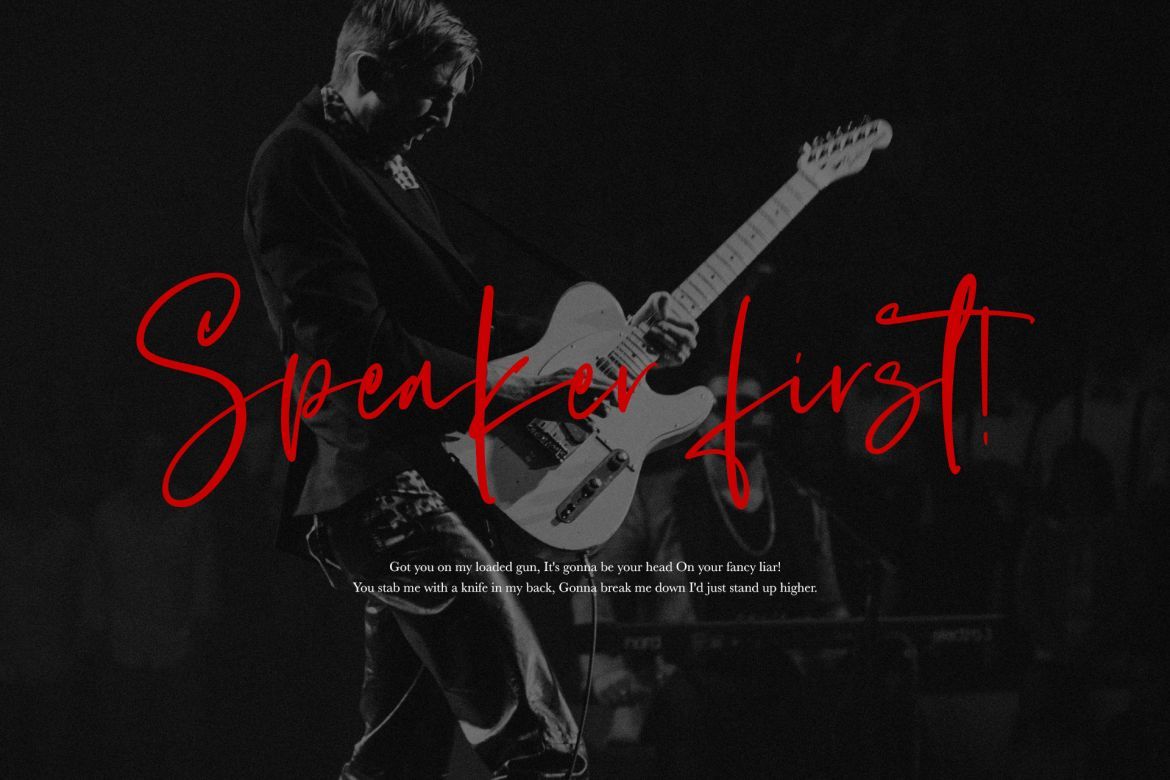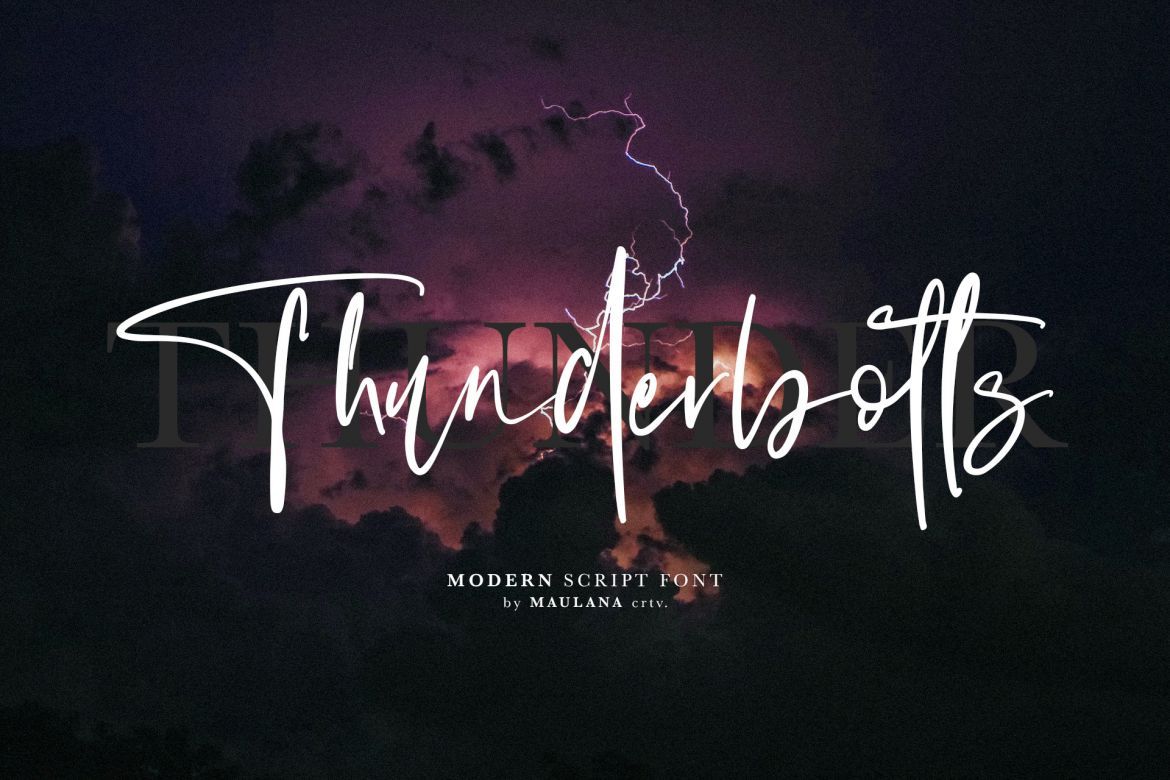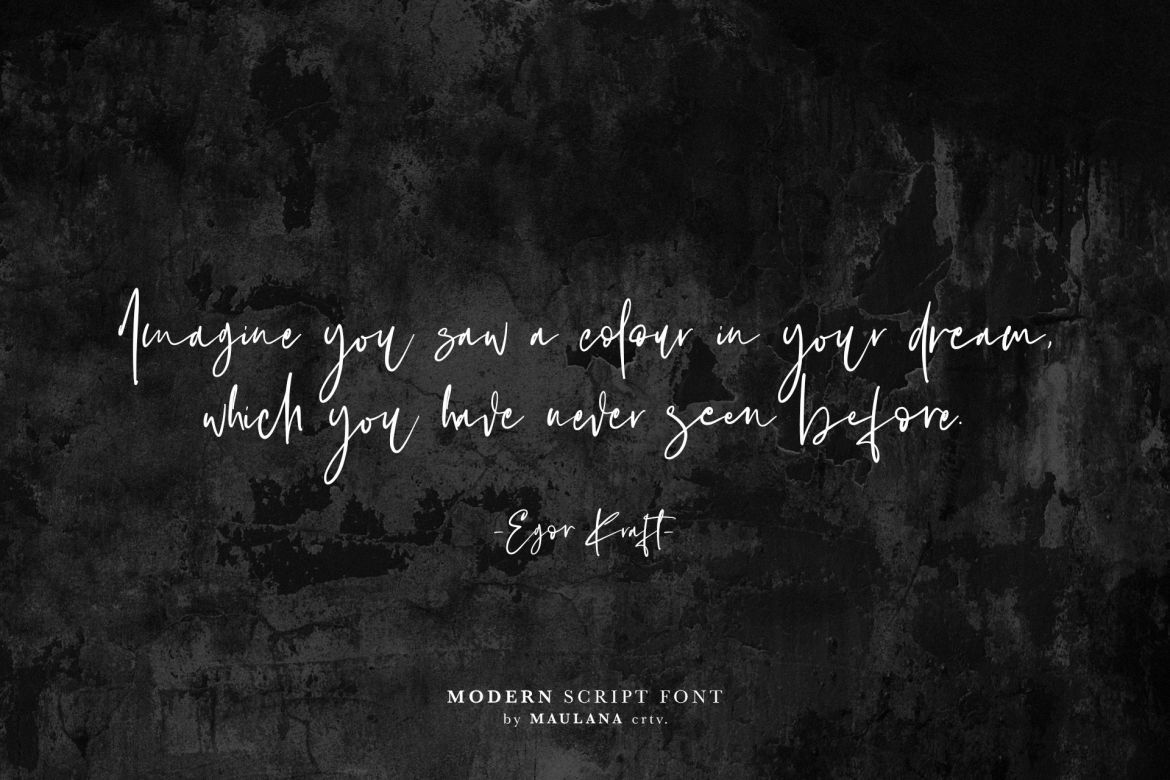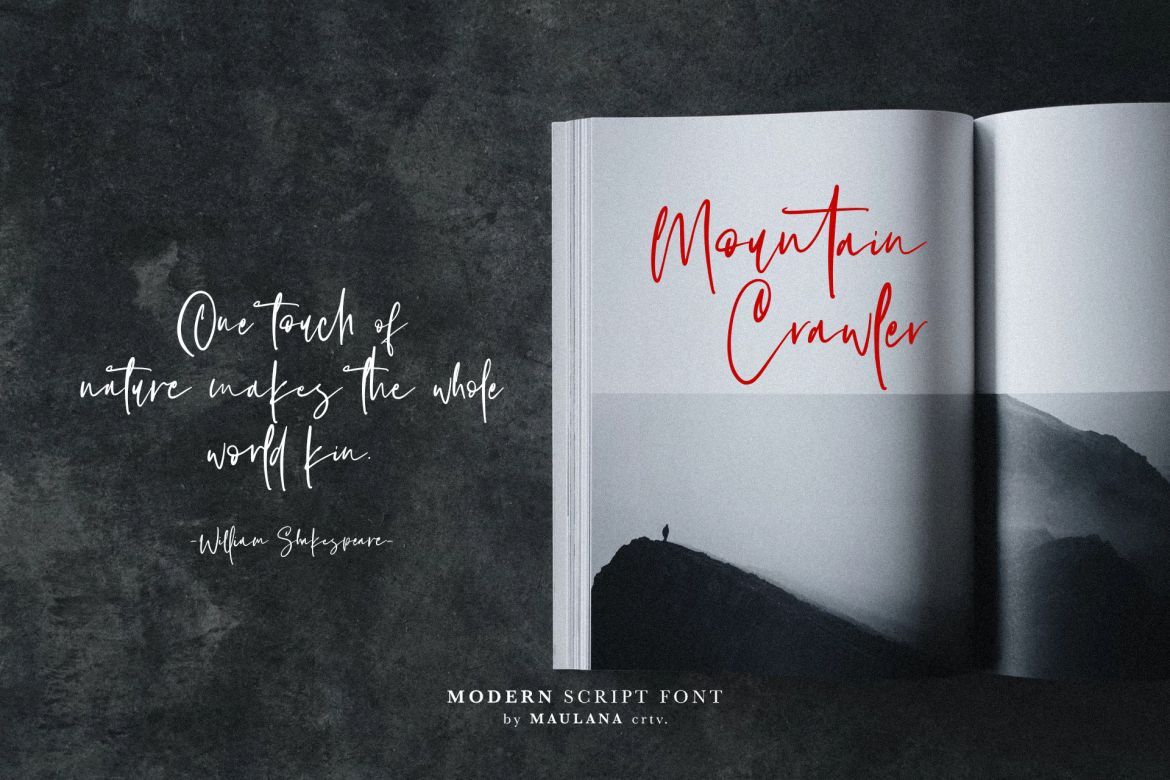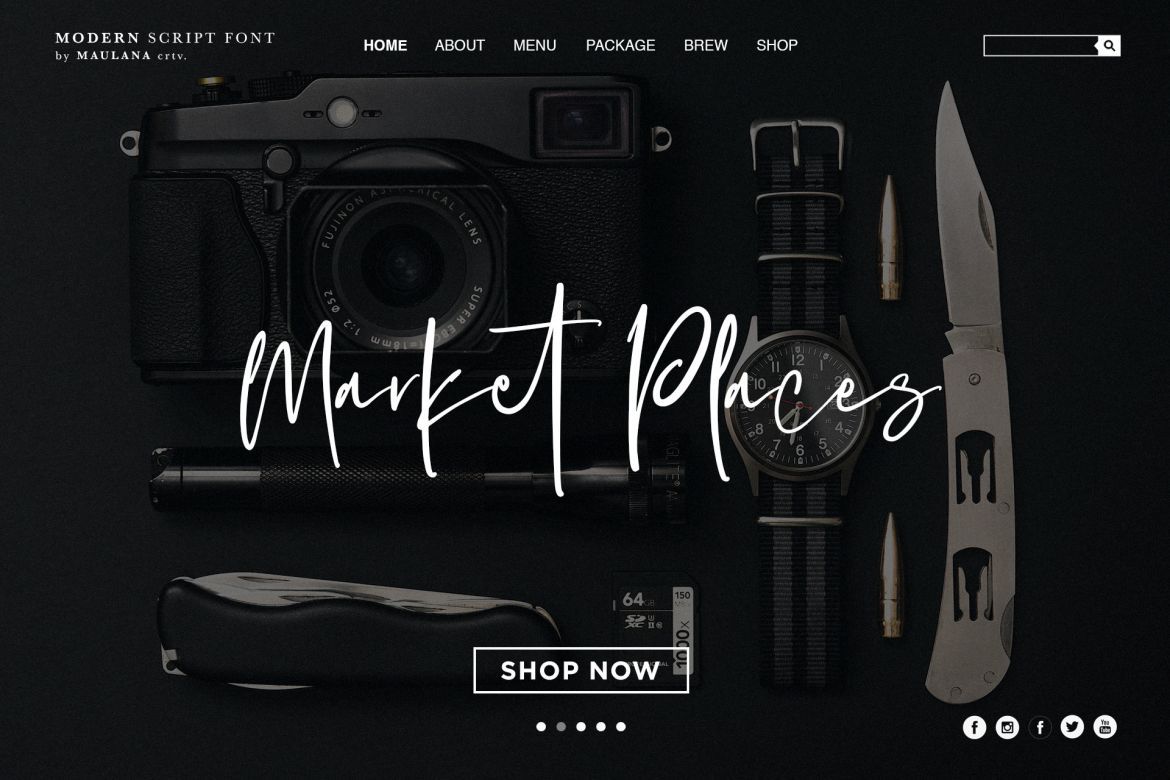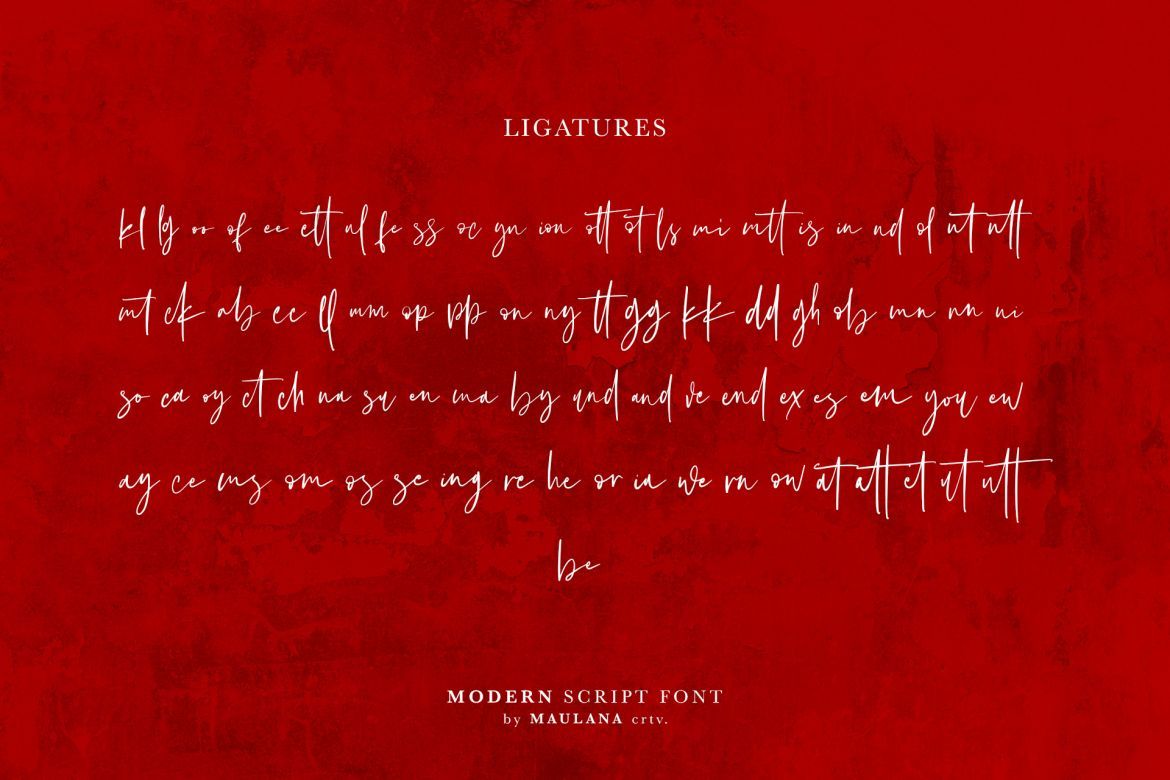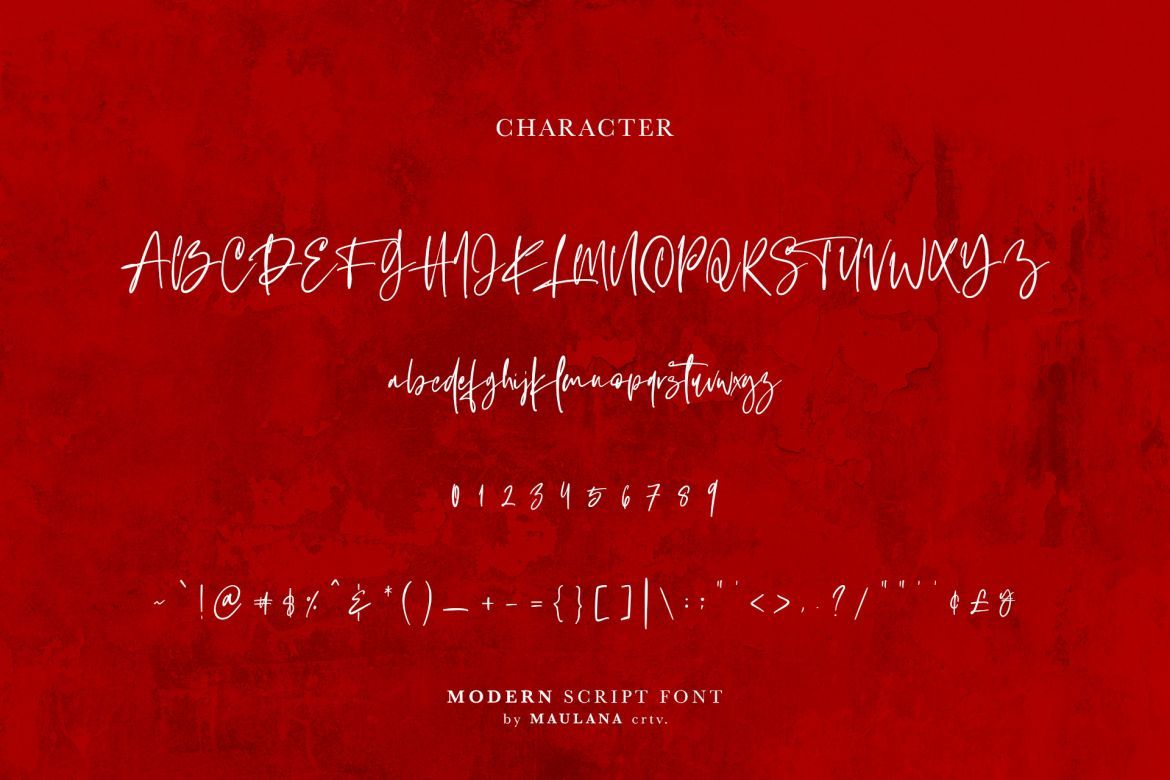
Hovercut Brush Script Font
Give your designs an authentic brush handcrafted feel. "Hovercut" is perfectly suited to signature, stationery, logo, typography quotes, magazine or book cover, website header, flyer, clothing, branding, packaging design and more.
Ligature Includes: kl lg oo of ee ett ul fe ss oc yn ion ott ot ls mi mtt is in nd ol nt ntt mt ck ab cc ll mm op pp on ny tt gg kk dd gh ob mn nn ni so ca oy ct ch na su en ma by und and ve end ex es em you ew ay ce ms om os se ing re he or ia we rn ow at att et ut utt be